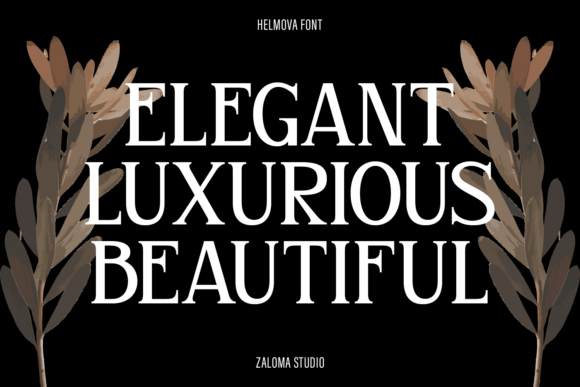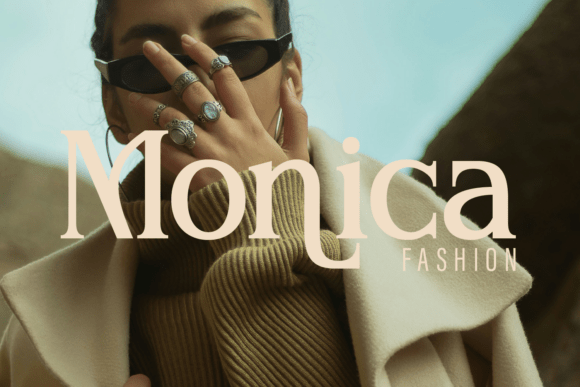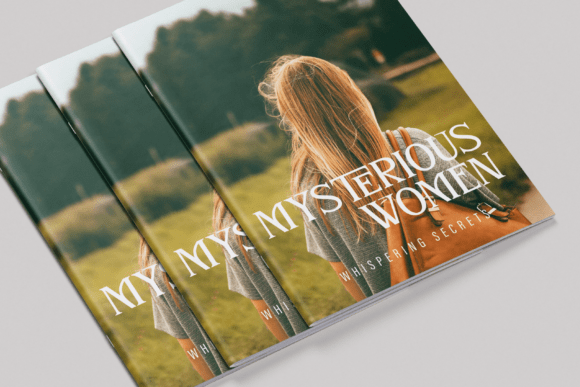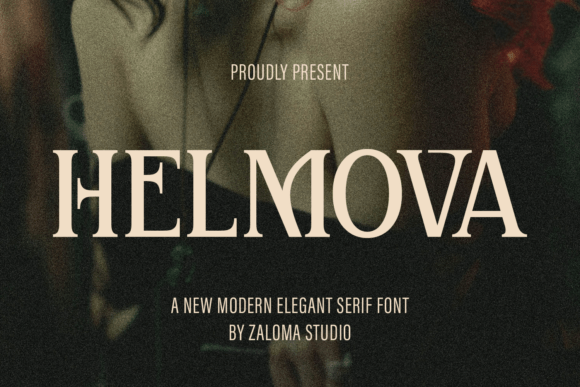
Introduction to Helmova Font
Helmova – Modern Elegant Serif Font Helmova is a modern elegant serif typeface with a classic soul.
Designed by Zaloma Studio, it blends timeless sophistication with artistic flair — perfect for luxury branding, editorial design, book covers, and high-end packaging Featuring stylish alternates and unique ligatures, Helmova allows you to create striking typographic compositions with character and charm.
Key Features of Helmova Font
Why Choose Helmova Font?